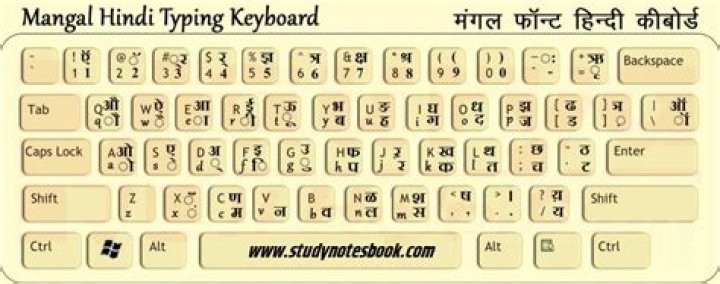
What are some Hindi fonts?
Hindi Fonts
- Devanagari New. It is the best font for both official and general use.
- Devanagari Bold. This is a bolder and stronger version of Devanagari New.
- DevLys Normal Font.
- DevLys Bold ANSI Font.
- Kurti Dev Normal (010)
- Kurti Dev Normal (020)
- Kurti Dev Bold (040)
- Kurti Dev Bold Italic (040)